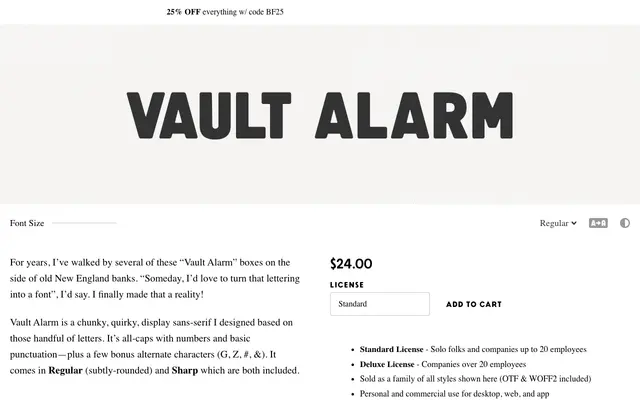
Vault Alarm
Simple Bits · Dan Cederholm
An all-caps display sans drawn from lettering on vintage New England bank alarm boxes, offered in subtly-rounded Regular and Sharp cuts.
Based on a handful of letters spotted on old bank vault alarm boxes in New England, this chunky all-caps display face leans into the irregular charm of its source material. It ships in two styles: Regular with softly rounded terminals and Sharp with harder edges. The character set covers capitals, numerals and basic punctuation, with a handful of alternate glyphs for G, Z, the ampersand and hash.
All-caps chunky display sans-serif derived from lettering found on vintage New England bank alarm boxes; quirky and irregular in character, clearly intended for display use only.